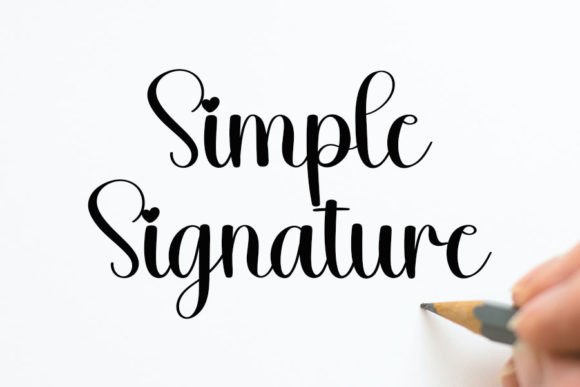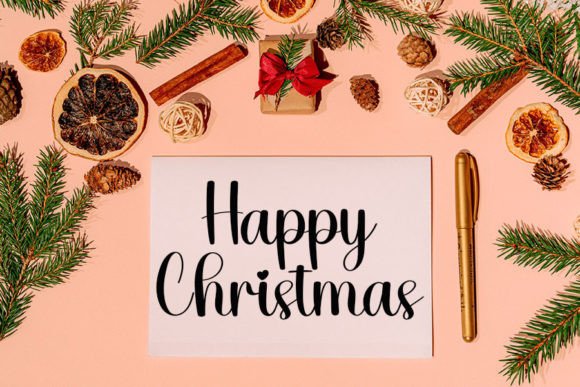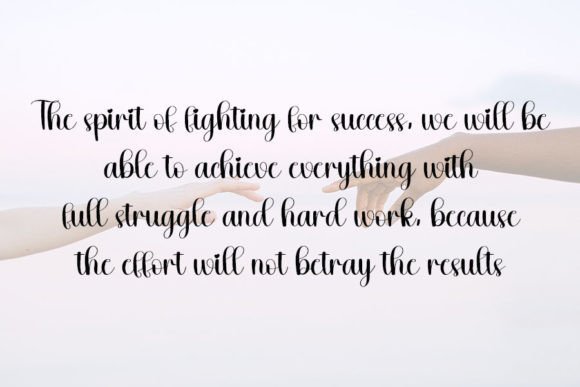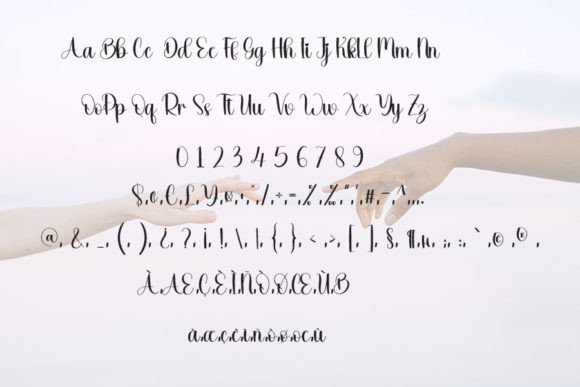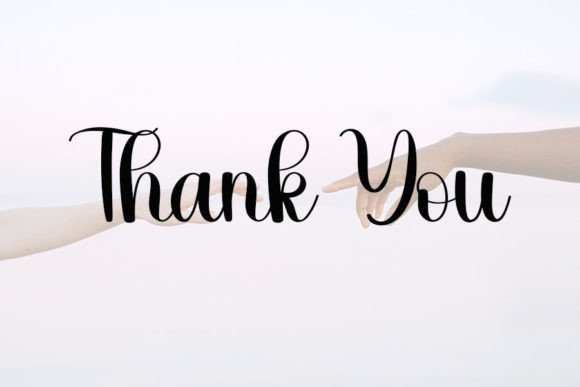
The Perfect Companion for Your Creative Projects: Bestie Font
Have you ever been working on a project and suddenly, the right font appears, bringing your vision to life? That’s exactly what happened when I stumbled upon the Bestie Font – a charming, handwritten font that’s perfect for any creative endeavor. Whether I’m crafting a birthday card or designing a presentation, this font is always by my side, elevating my work with its friendly and approachable feel.
| 👤 Author | Ganden Letter |
Bestie Font is more than just a pretty face; it’s a valuable tool for designers, offering a unique and versatile solution for a wide range of projects. With its cursive script and playful flair, it’s easy to see why Bestie Font has become a favorite among creatives. Whether you’re a seasoned designer or a hobbyist, this font is sure to become your go-to companion for all your creative needs.
Bestie Font Key Features
- Font Family: Bestie
- Font Styles: Regular, Italic, Bold, Bold Italic
- Unique Characteristics: Friendly, approachable, and modern feel; suitable for branding, advertising, and digital media
Designer Review: Bestie Font
Overall, I think Bestie Font is a solid choice for projects where you want a friendly, approachable feel. ✨ The font’s rounded edges and gentle curves give it a welcoming vibe that’s perfect for social media graphics, blog posts, or any content that needs to feel approachable.
Here are some specific things that work well:
- ✨ The font’s adaptability to various font sizes, making it look great in both headings and body text.
- ✨ The subtle flair at the end of letters adds a touch of personality without being too over-the-top.
- ⚠️ The font may not be as effective in formal or professional contexts, as its playful feel may come across as too casual.
- ⚠️ Some users may find the font’s rounded edges too similar to other fonts, making it less distinctive in crowded designs.
Overall, I’d give Bestie Font 4 out of 5 stars. It’s a great choice for projects where you want a friendly, approachable feel, but it may not be the best fit for more formal or professional contexts.
The Bestie font is perfect for:
- Casual social media posts and captions.
- Food and drink branding.